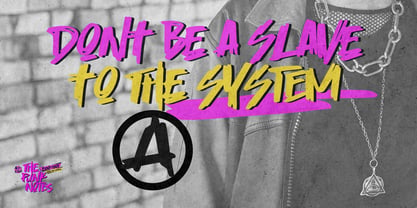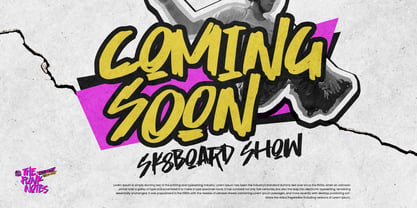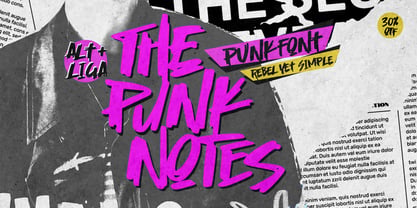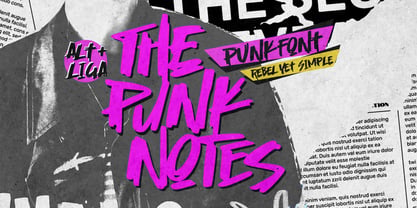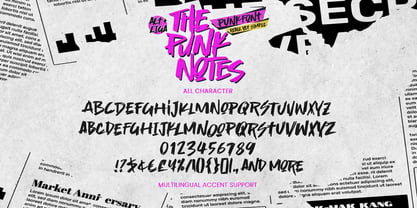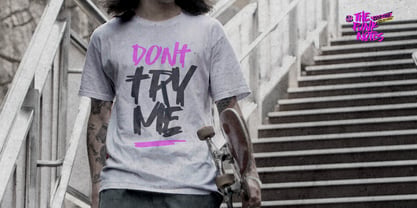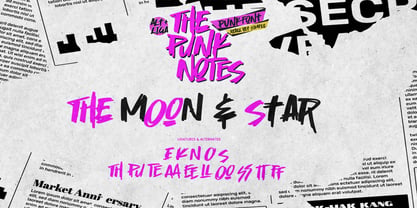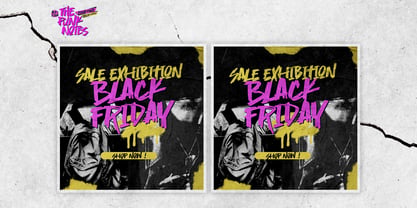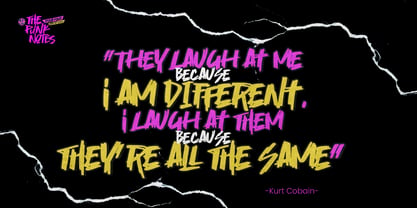
The Punk Notes
von Gassstype
Die Schriftfamilie The Punk Notes wurde von Abdul Malik Wisnu entworfen und von Gassstype veröffentlicht. The Punk Notes enthält 1 Stile. Mehr über diese Familie
Introducing our new font, The Punk Notes. This is a Rebel Yet Simple font with a Textured Natural Style, featuring Graffiti and Grunge elements. The Punk Notes font is perfect for a variety of creative projects, including logos, printed quotes, invitations, cards, product packaging, headers, logotypes, letterheads, posters, and more. It's ideal for adding a watermark to photography and excels in branding, advertisements, stationery, wedding designs, labels, and special events. With its charming, authentic, and relaxed characteristics, this font brings a more natural look to your text, making it a versatile choice for any design.
Designer: Abdul Malik Wisnu
Foundry: Gassstype